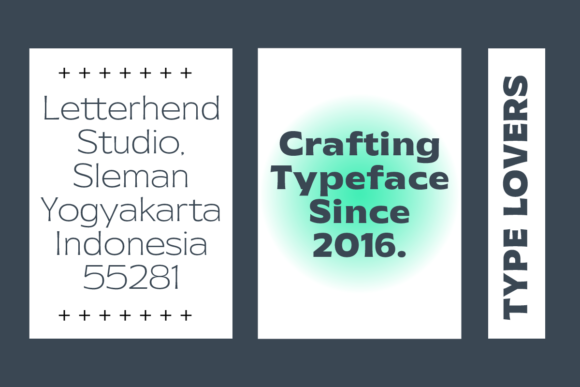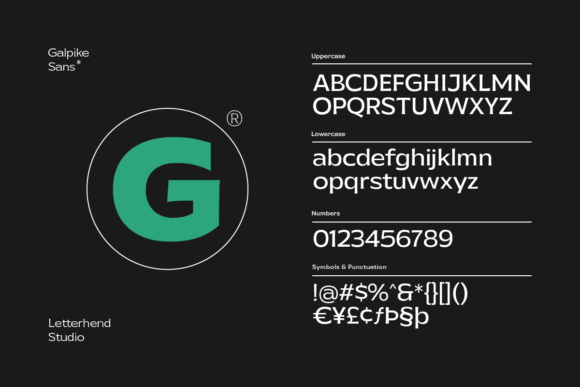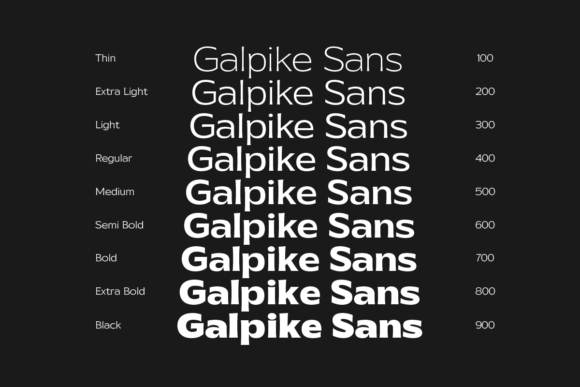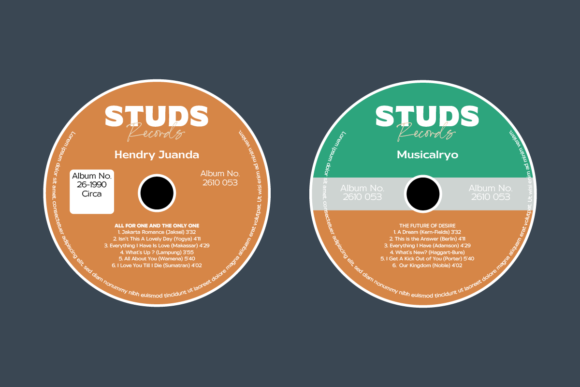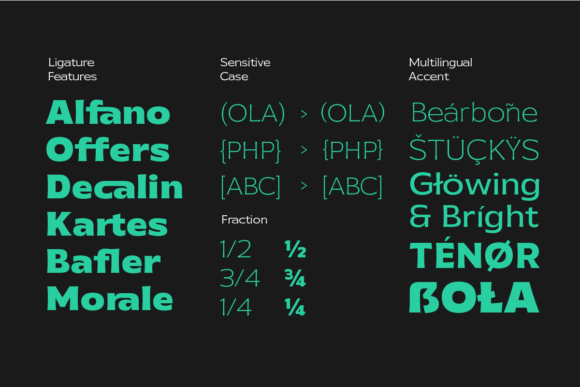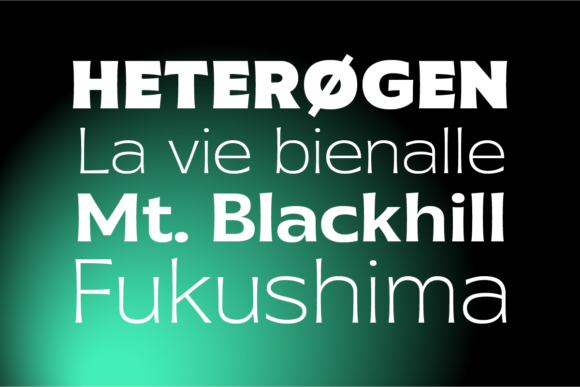
Galpike Sans Font: Elevate Your Designs with a Bold and Versatile Typeface
Are you tired of using the same old fonts in your designs? Look no further than Galpike Sans, a bold and versatile display font that’s perfect for making your creative projects stand out. With its unique character and wide range of applications, Galpike Sans is a must-have for designers and crafters looking to add a touch of personality to their work.
The Versatility of Galpike Sans
One of the standout features of Galpike Sans is its incredible versatility. This font can be used in a wide range of projects, from bold and eye-catching headlines to more subtle and sophisticated body text. Whether you’re working on a logo, a brochure, or a website, Galpike Sans is sure to make a lasting impression.
Galpike Sans is a sans-serif font, which means it has a clean and modern look that’s perfect for designs that require a bit of edge. The font’s bold lines and geometric shapes give it a strong and confident feel, making it perfect for headlines, titles, and other display text.
What Makes Galpike Sans So Special?
So what sets Galpike Sans apart from other fonts on the market? Here are just a few of the features that make it so special:
- Unique Character: Galpike Sans has a distinctive personality that’s all its own. Its bold lines and geometric shapes give it a strong and confident feel that’s perfect for making a statement.
- Highly Versatile: Whether you’re working on a logo, a brochure, or a website, Galpike Sans is sure to fit the bill. Its clean and modern look makes it perfect for a wide range of applications.
- Easily Readable: Despite its bold and eye-catching design, Galpike Sans is incredibly easy to read. This makes it perfect for body text, as well as headlines and titles.
How to Use Galpike Sans in Your Designs
So how can you use Galpike Sans in your designs? Here are a few ideas to get you started:
- Headlines and Titles: Galpike Sans is perfect for bold and eye-catching headlines and titles. Use it to grab attention and draw the reader in.
- Logos and Branding: The font’s unique character and strong lines make it perfect for logos and branding. Use it to create a lasting impression and build recognition for your brand.
- Posters and Flyers: Galpike Sans is a great choice for posters and flyers, where its bold and eye-catching design can really make an impact.
- Web Design: The font’s clean and modern look makes it perfect for web design. Use it to create a bold and eye-catching website that really stands out.
Tips and Tricks for Getting the Most Out of Galpike Sans
Here are a few tips and tricks for getting the most out of Galpike Sans:
- Experiment with Different Sizes: Galpike Sans looks great in a wide range of sizes, from bold and eye-catching headlines to more subtle and sophisticated body text.
- Play with Color: The font’s bold lines and geometric shapes make it perfect for use with a wide range of colors. Experiment with different color schemes to find the one that works best for your design.
- Use it with Other Fonts: Galpike Sans pairs well with a wide range of other fonts. Experiment with different combinations to find the one that works best for your design.
Galpike Sans is a bold and versatile display font that’s perfect for designers and crafters looking to add a touch of personality to their work. With its unique character, highly versatile design, and easily readable text, Galpike Sans is a must-have for anyone looking to elevate their designs and make them stand out. So why wait? Download Galpike Sans today and start creating amazing designs that really make an impact!